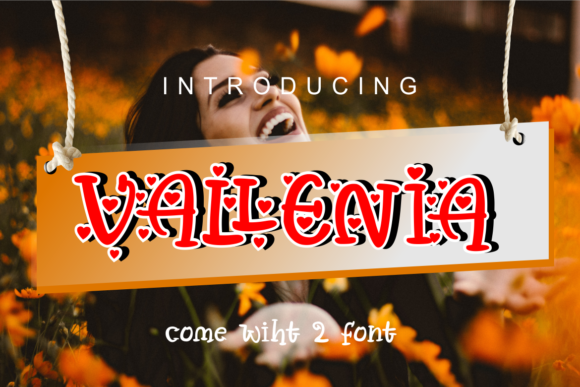
Introducing Vallenia Love Font, the decorative masterpiece that will ignite your creativity and captivate your audience. This meticulously handcrafted font exudes effortless charm, captivating with its readability and versatility.
Vallenia Love's casual elegance transcends boundaries, effortlessly blending into any backdrop or stealing the spotlight as a bold headline. Its versatile nature makes it the perfect choice for a wide array of projects, from vibrant invitations to eye-catching social media posts.
Whether you're crafting a heartfelt love letter, designing a whimsical poster, or creating a memorable logo, Vallenia Love will add a touch of warmth and sophistication to your creations. Its charming curves and playful strokes evoke a sense of joy and enchantment, leaving an unforgettable impression on your readers or viewers.
Experience the magic of Vallenia Love Font today, and unleash your creative potential. Let its beauty and versatility inspire you to create extraordinary works that will leave a lasting impact.